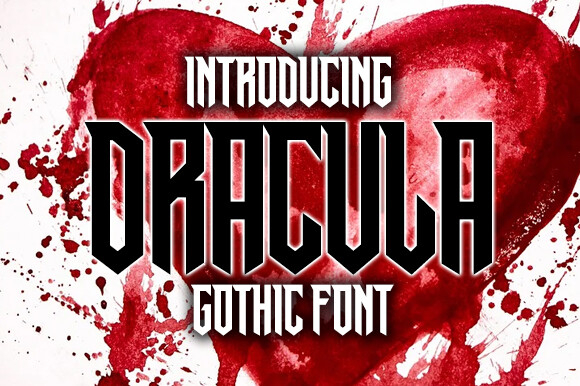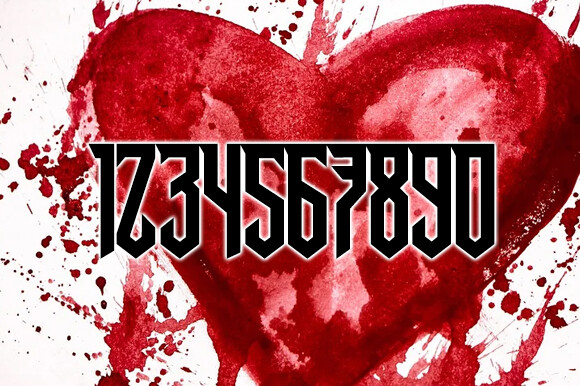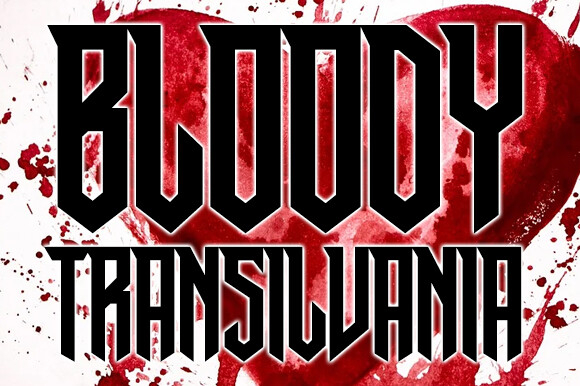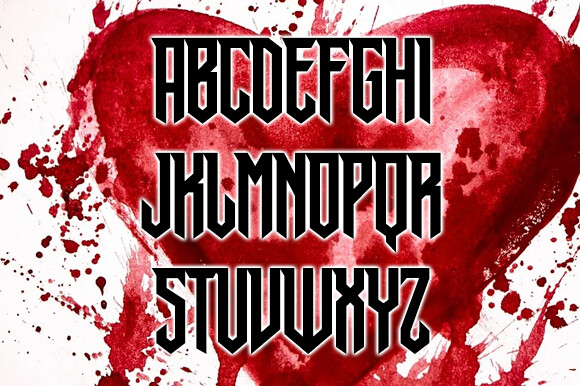
Dracula Font
About Dracula Font
Dracula is inspiring gothic font family that comes in Regular and Condensed variant. Use this font on posters, flyers and t-shirt.